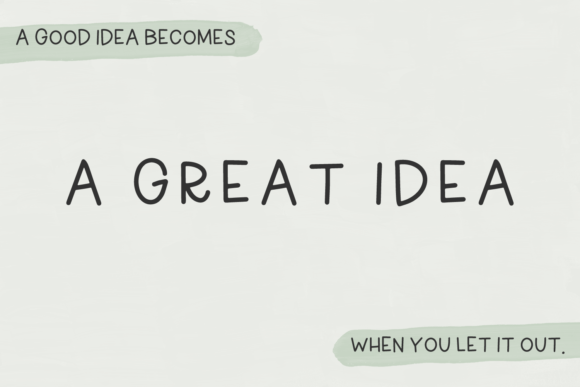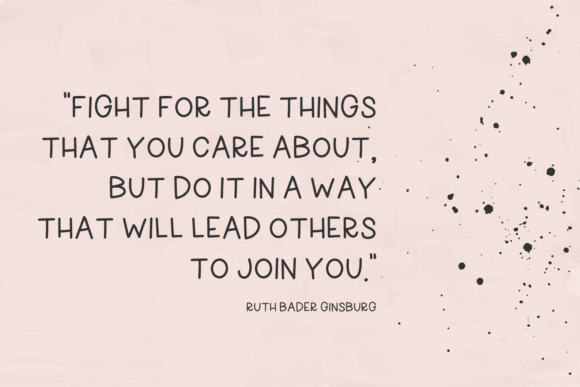
Outlandish Font
db-ku.com - Script & Handwritten -- Outlandish is a cute, childish and simple lettered handwritten font. Its authentic handwritten look and feel will add a personal and realistic feel to your designs.